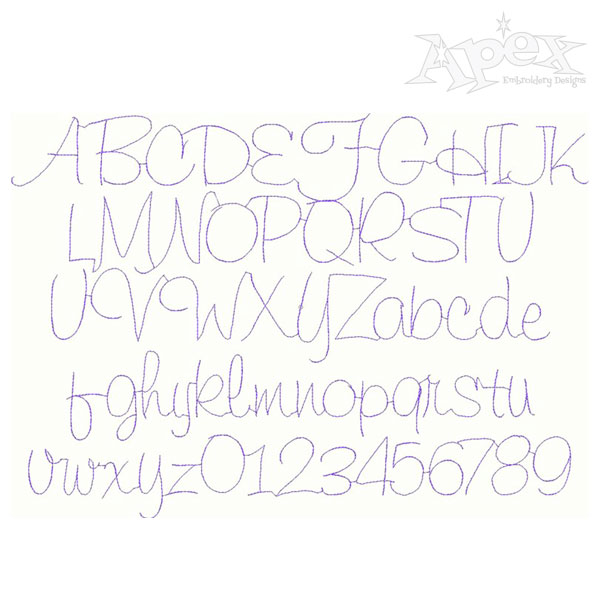
Running Quick Stitch Embroidery Fonts
Running Run Stitch Embroidery Fonts. Great for a quick stitch, picture only has a 900 stitch count. Three sizes in upper case, lower case and numbers. Size: 3", 4" and 6"